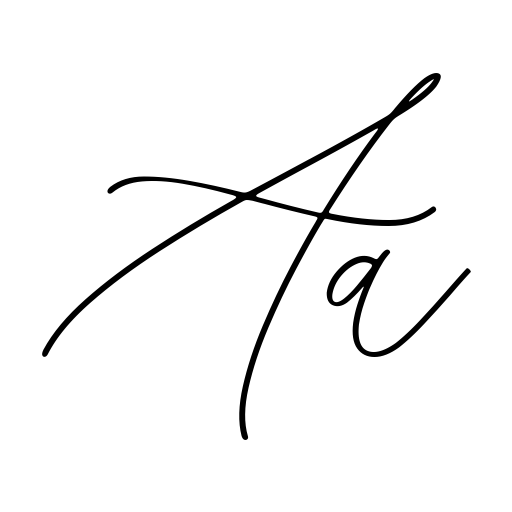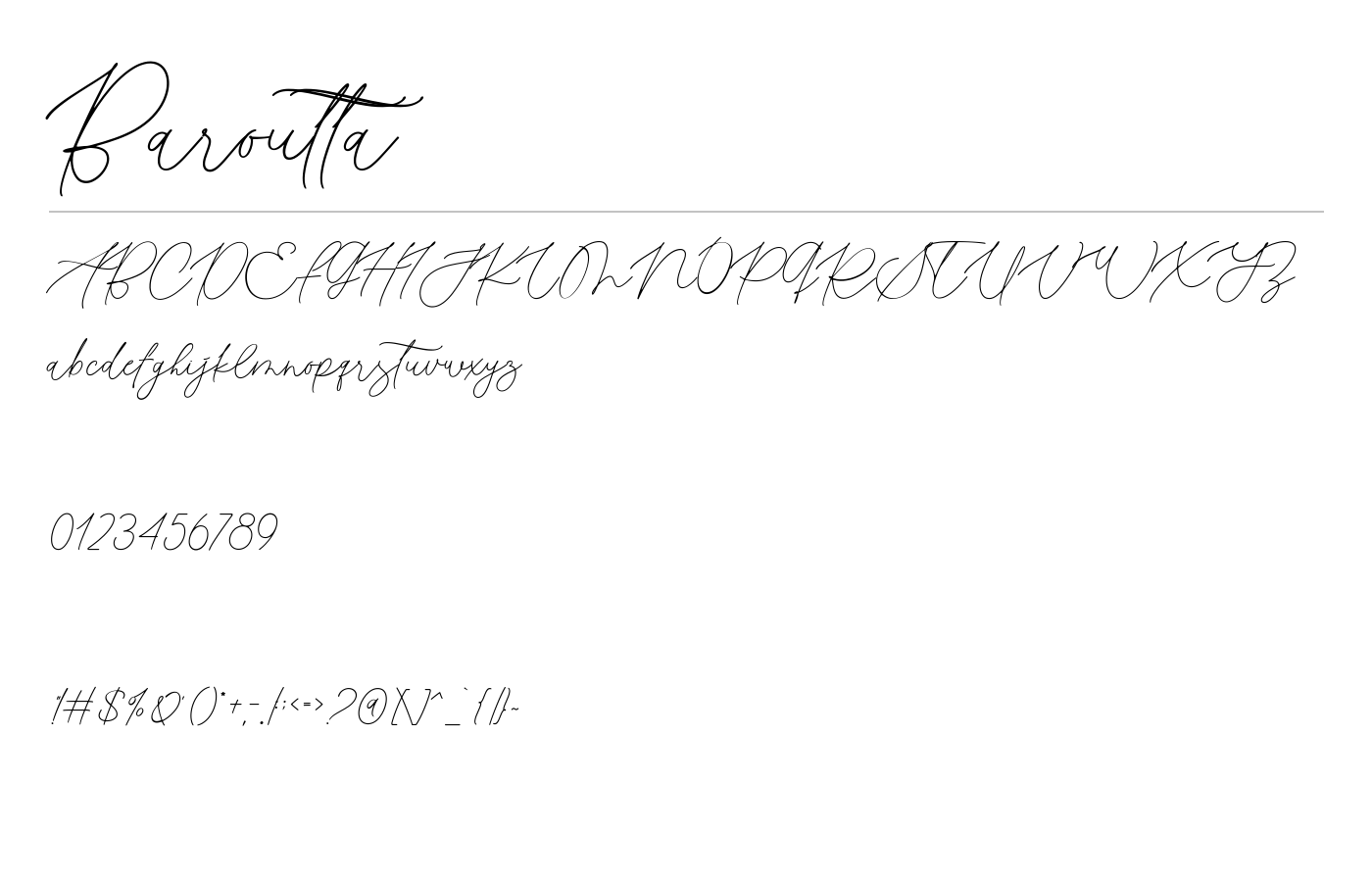
Baroutta is a delicate, elegant script font featuring fine, flowing lines that convey a sophisticated and graceful personality. Its tall, slender letterforms with smooth, calligraphic strokes make it perfect for luxury branding, wedding invitations, and refined editorial designs where a stylish and personal touch is desired. This font works best in large sizes for headlines or logos, where its intricate details can be fully appreciated.
Baroutta Font
About Baroutta Font
| Font family | Baroutta Font |
| Designer | Zain Fahroni |